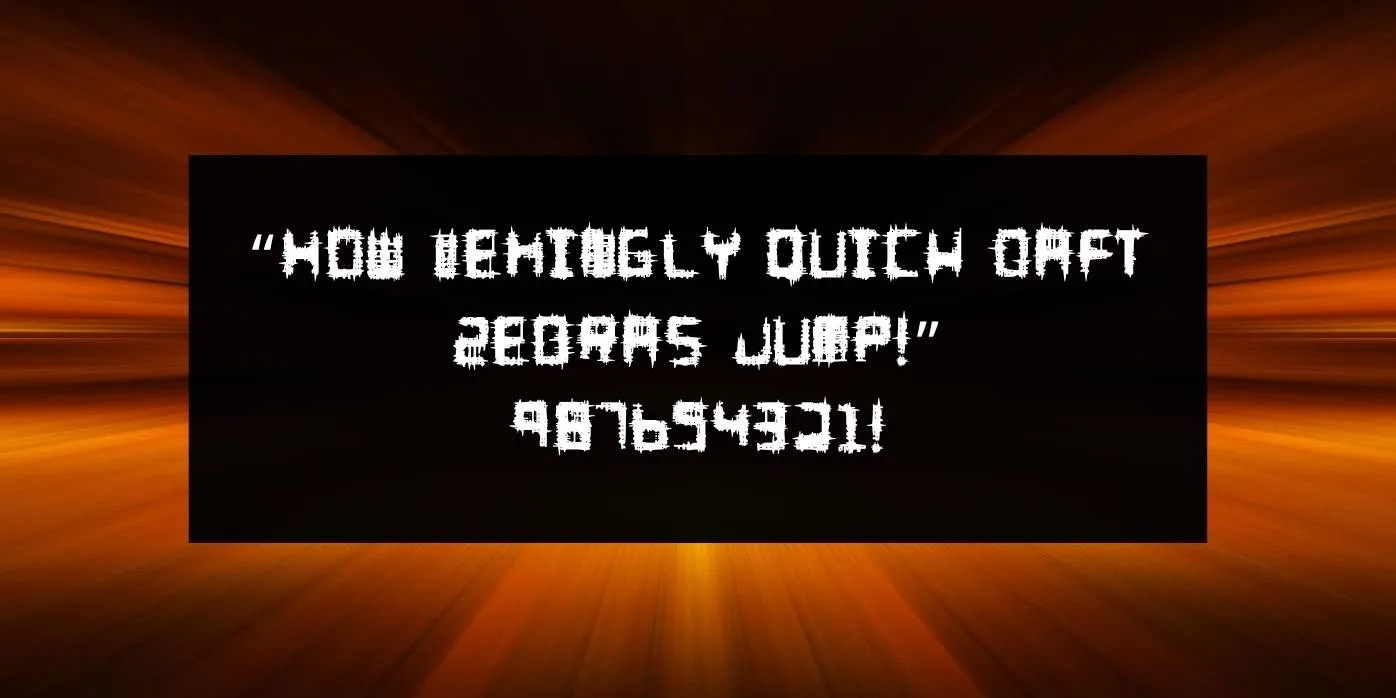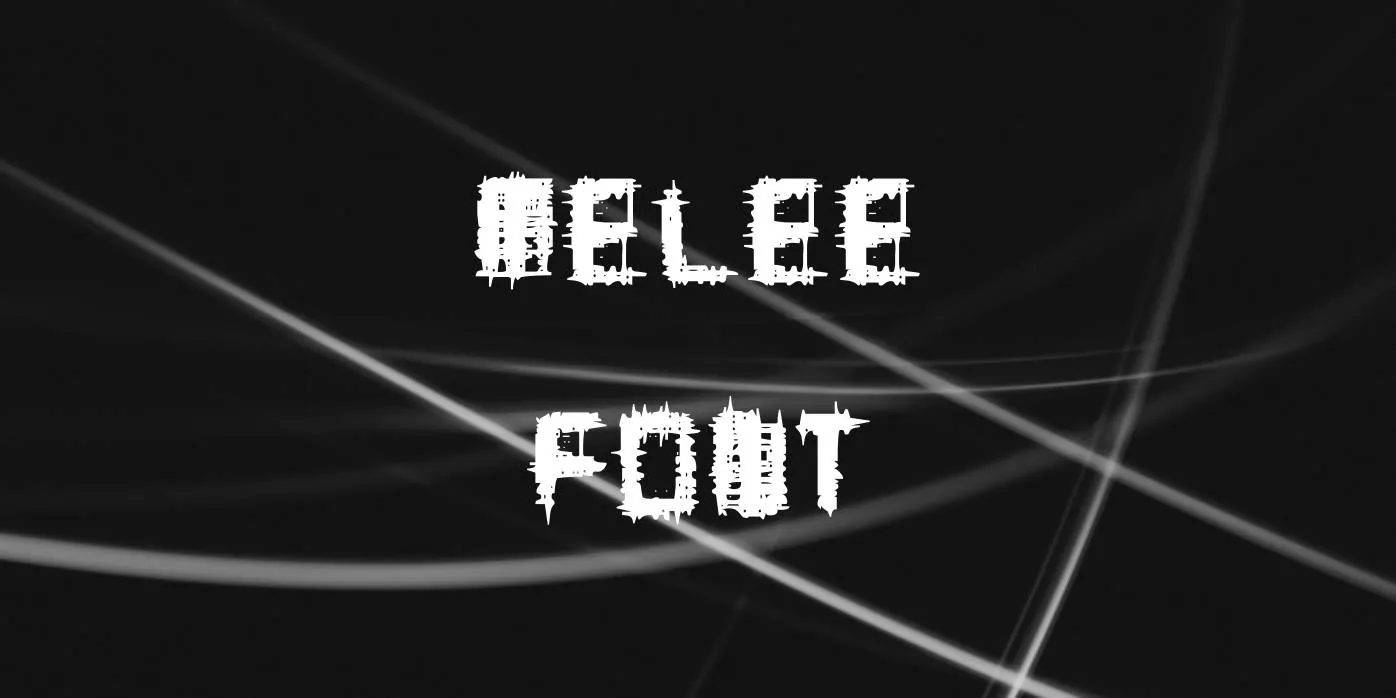
Melee Font
Melee Font is a fancy type of font that was created specifically for the games. It is one of the most popular fonts used in the game and has been featured in many tournaments and events. The font is known for its unique style and appearance, which has made it a favorite among fans of the game. The Melee Font was created by Nintendo in 2001 and was first used in the game Super Smash Bros.
The font was designed to be used in the game’s menus and text boxes and has since become one of the most popular fonts used in the game. For more advanced uses, you need to use american script font by making a combination with this family. The Melee font has a unique style that is different from other fonts used in the game. It is characterized by its blocky, square-shaped letters and its thick lines.
The font is also known for its sharp edges, which give it a distinct look.